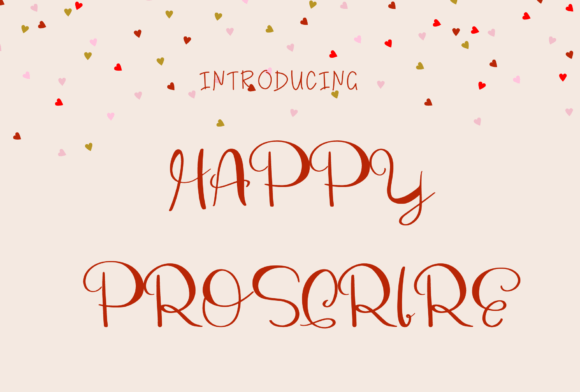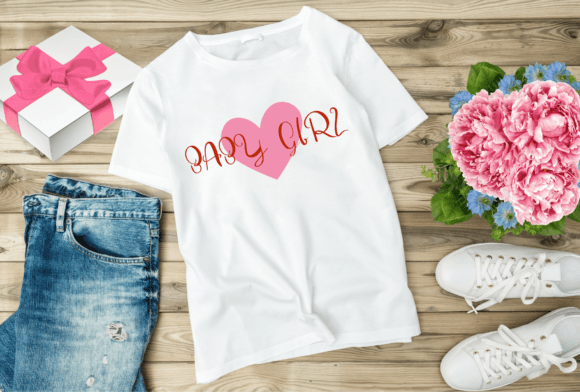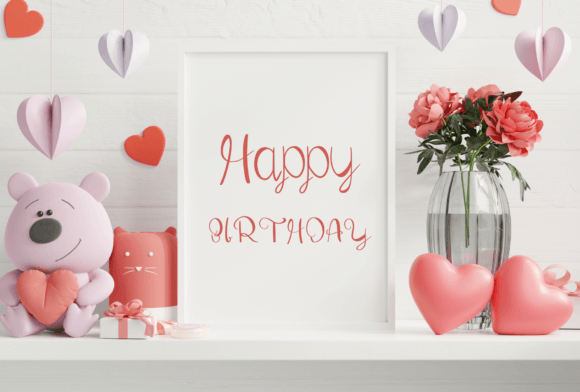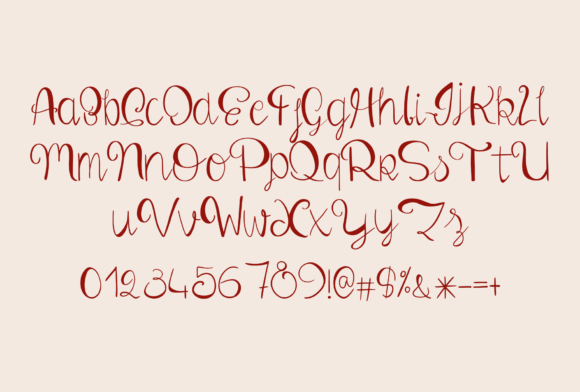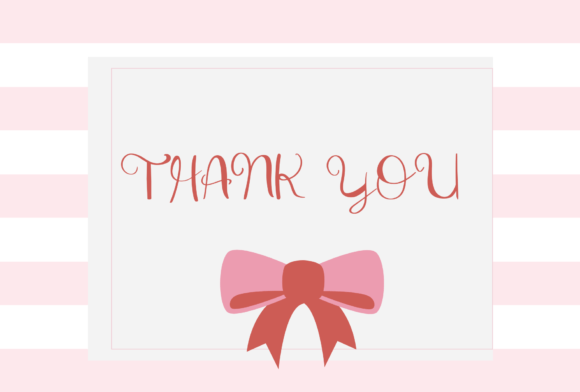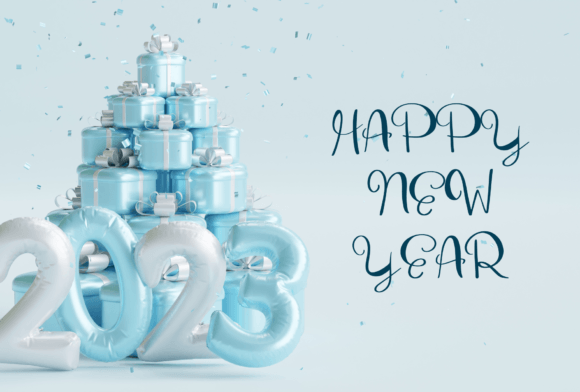
Happy Proscrire Font
About Happy Proscrire Font
Happy Proscrire font is a fun and stylish handwritten script that brings life and personality to any creative project. Its playful yet elegant strokes make it a versatile choice for designers looking to add a unique and friendly touch to their work. Whether you’re creating logos, invitations, social media posts, or branding materials, this font can elevate your designs to the highest levels.
Playful and Stylish Handwritten Script
The font’s design combines casual charm with sophisticated style. It features fluid curves and dynamic strokes that mimic natural handwriting, giving your projects an authentic, personal feel. Happy Proscrire captures the joyful energy of handwritten letters while maintaining clarity and professionalism. Its lively and stylish appearance makes it perfect for a variety of creative uses.
Versatility for Different Design Projects
Happy Proscrire font adapts well to many different design needs. Here are some popular applications:
• Logos and Branding: Create memorable brand identities with this approachable and stylish script.
• Wedding Invitations and Event Materials: Add a joyful, handwritten flair that enhances the charm of your special occasions.
• Social Media Graphics: Make your posts more engaging with a font that feels personal and dynamic.
• Product Packaging: Bring a handcrafted and lively look to your packaging and labels.
• Posters and Marketing: Capture attention with bold yet friendly typography.
Why Choose Happy Proscrire Font?
Choosing the Happy Proscrire font means opting for a typeface that combines style with fun. It brings warmth and personality, helping your projects connect with audiences on a more human level. Whether you’re a professional designer or a DIY creative, this font makes your work stand out with its unique, handwritten charm.
Easy to Use and Pair
Happy Proscrire pairs well with simple sans-serif fonts, allowing you to balance its playful script with clean and modern typography. Use it for headings, logos, or accent text to draw focus and add creativity. It works beautifully in both digital and print formats, ensuring your designs look great everywhere.
Tips for Best Use
• Use Happy Proscrire for display text where you want to convey personality and style.
• Pair with neutral fonts to maintain readability and balance.
• Avoid using for long paragraphs to keep the text easy to read.
• Apply it in projects needing a warm, approachable, yet stylish vibe.
Happy Proscrire font is the perfect choice for anyone wanting a fun and stylish handwritten script. Its vibrant and friendly design brings your creative ideas to life and makes every project shine with unique personality.